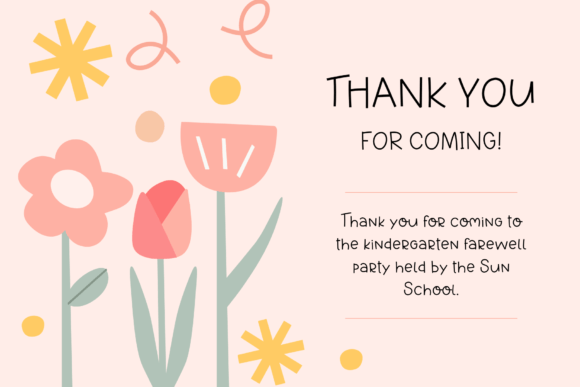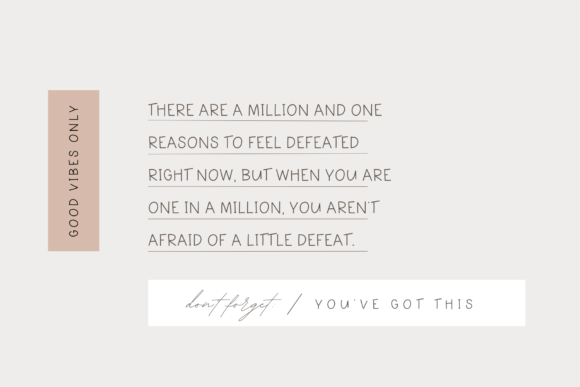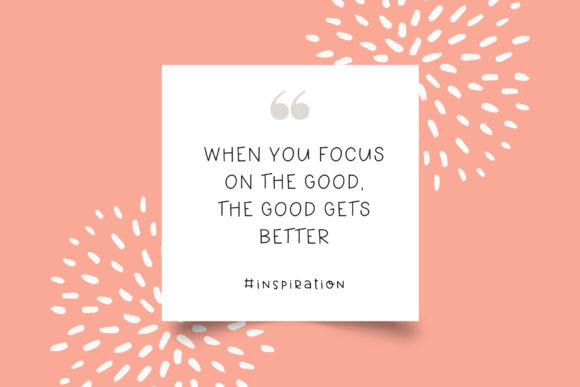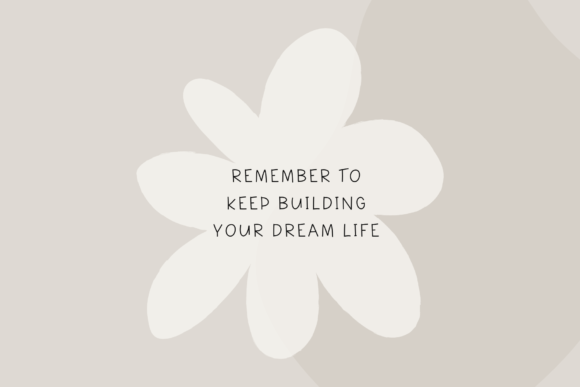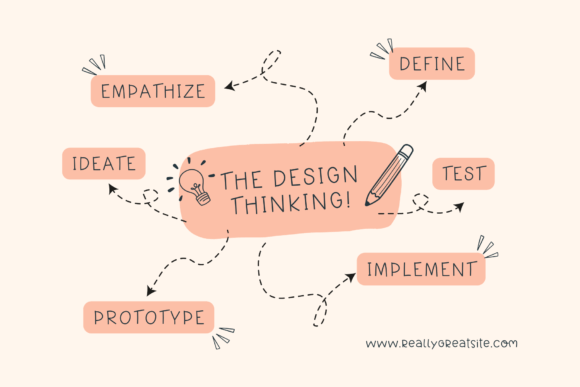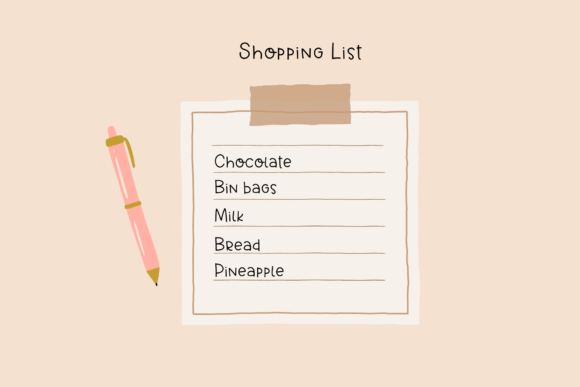
The Gourmand Font: Elevate Your Creatives with a Touch of Handwritten Charm
Have you ever been in the middle of working on a project, and suddenly, you’re stuck on finding the perfect font to bring your design to life? I recall a particularly frustrating moment when I was creating a digital planner, and my usual go-to fonts just weren’t cutting it. That’s when I stumbled upon the Gourmand Font, and it completely transformed my design. In this article, I’ll share my experience with this beautiful font, its features, and how you can make the most of it in your creative projects.
An Honest Review of Gourmand Font
I’m excited to share my thoughts on the Gourmand Font, and what I love about it:
- ✨ Unique handwriting style that adds a personal touch to any design
- 💫 Supports OpenType features, including glyphs and stylistic alternates
- 🎨 Versatile and suitable for various creative projects, from digital planners to invitations
While the Gourmand Font is amazing, there are a few minor quirks to be aware of:
- 🤔 Some users might find the font a bit too ornate for certain projects
- ⚠️ Limited availability of uppercase letters, which might be a consideration for specific designs
The Designer Inspiration Behind Gourmand Font
The Gourmand Font was crafted with the intention of capturing the essence of handwritten notes in a digital age. Inspired by classic French script fonts, the designer aimed to create a font that exudes warmth, elegance, and a touch of playfulness. The result is a versatile font that can elevate a wide range of creative projects.
| Font Name | Gourmand Font |
| Author | Cotton White Studio |
| What type of projects is the Gourmand Font best suited for? | The Gourmand Font is versatile and can be used for digital planners, journals, invitations, notetaking, and any project that requires a handwriting look. |
| Is the Gourmand Font suitable for body text? | While the Gourmand Font is highly legible, it’s best used for headings, titles, or short paragraphs due to its ornate nature. |
With its unique handwriting style and support for OpenType features, the Gourmand Font is a fantastic addition to any designer’s toolkit. Whether you’re creating digital planners, journals, or invitations, this font is sure to add a touch of elegance and personality to your projects.